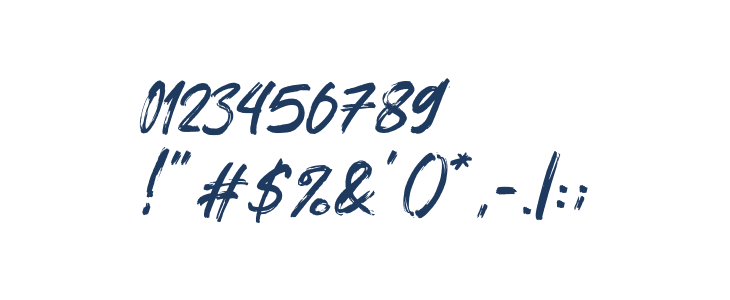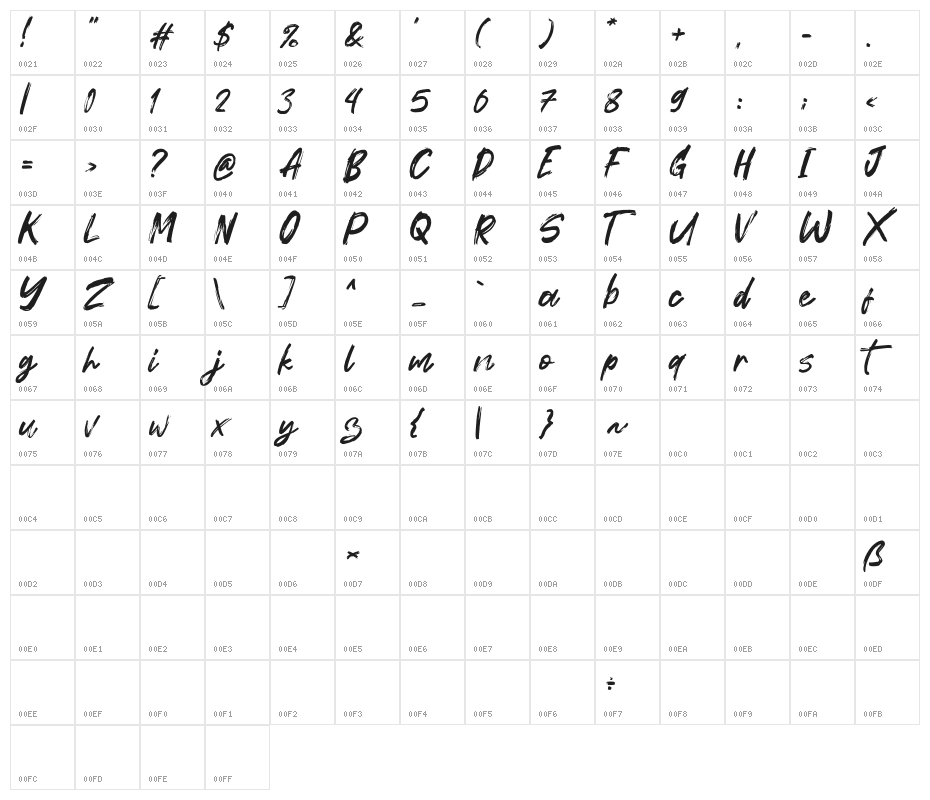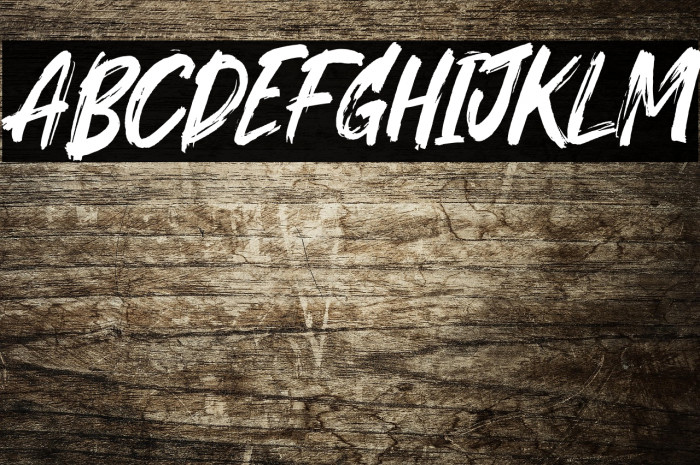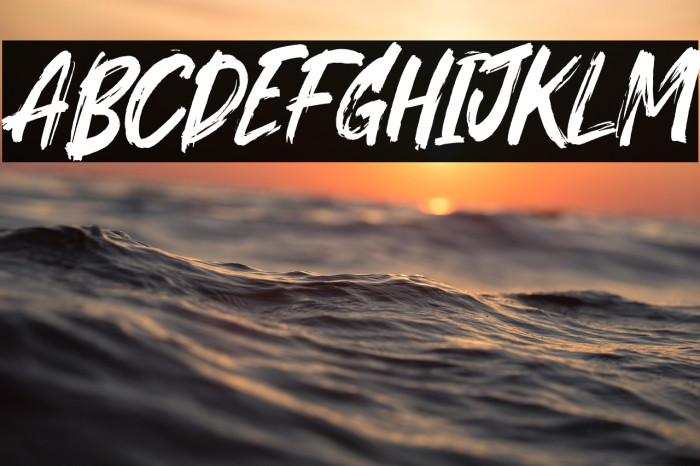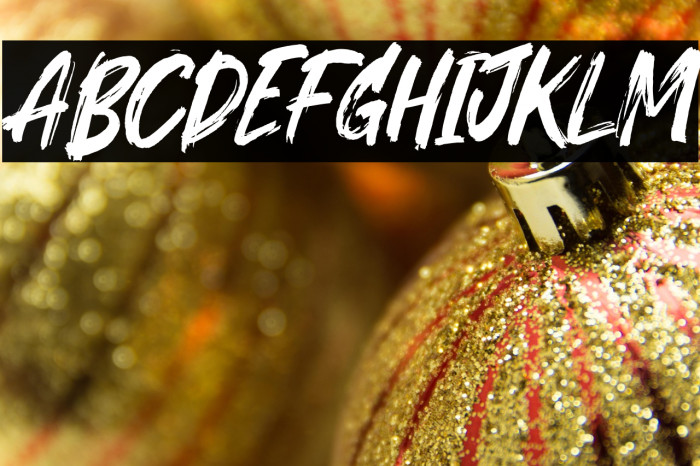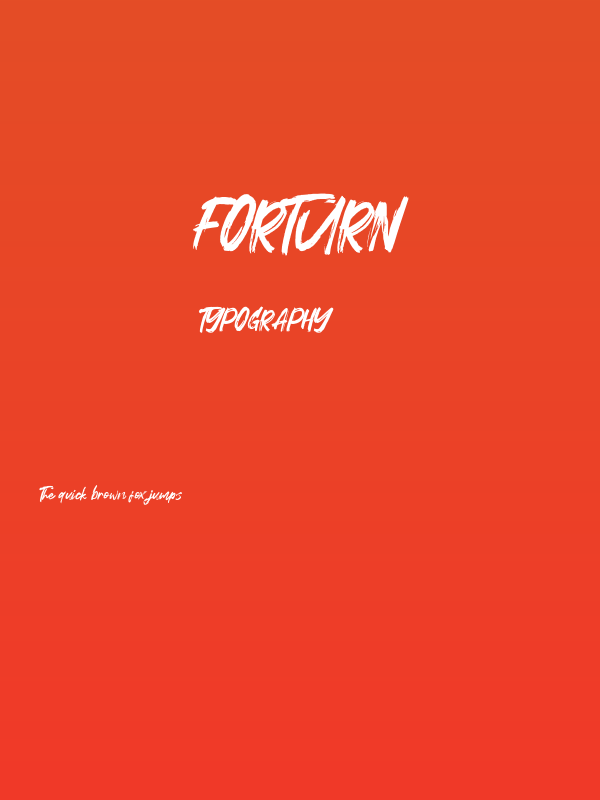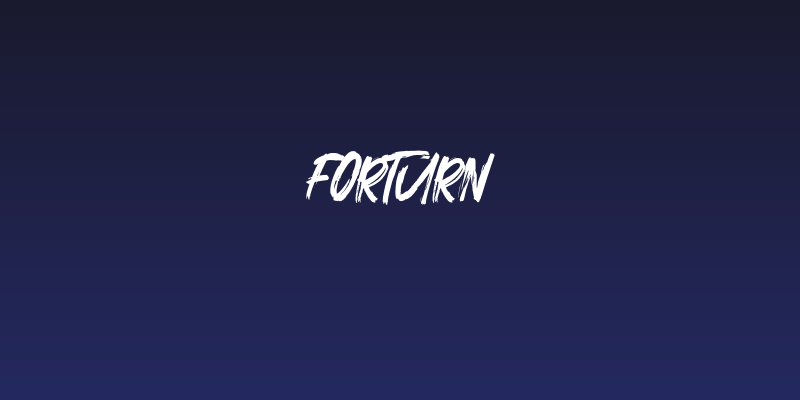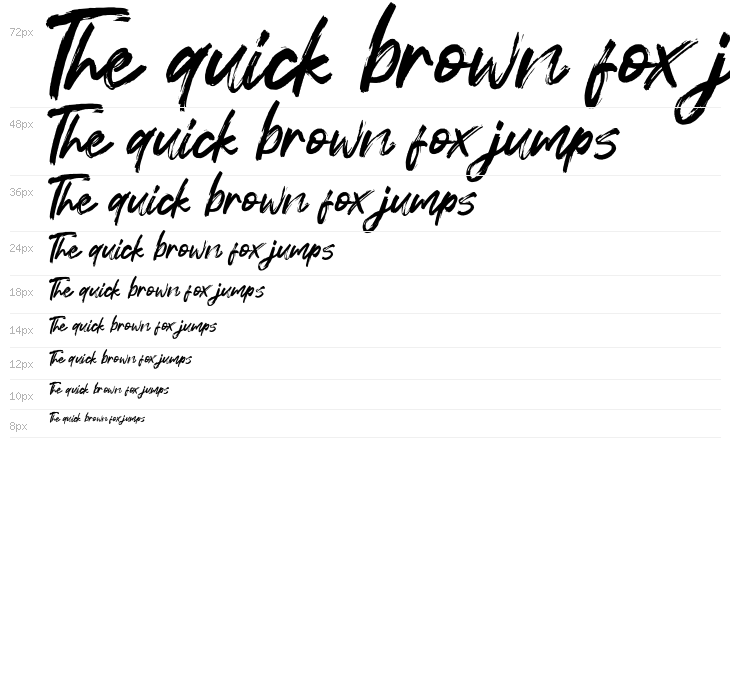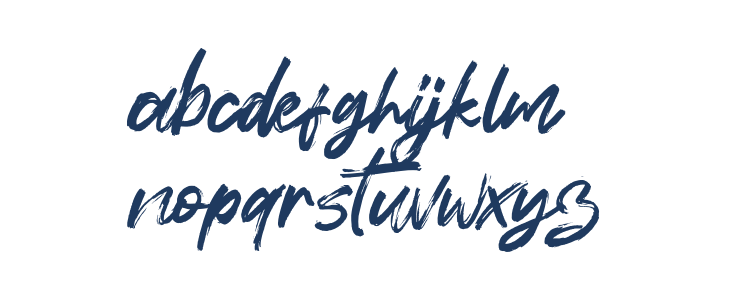
Forturn Font
Forturn Description
This font exhibits a bold, expressive style with a hand-drawn appearance. The strokes are thick and dynamic, giving each character a sense of movement and energy. The uppercase letters are particularly striking, with a slightly irregular form that adds to the font's artistic flair. Lowercase letters maintain this energetic style, with some characters featuring unique flourishes. The numbers and special characters are consistent with the overall design, ensuring a cohesive look. This font's brush-like texture and bold presence make it ideal for creative and impactful designs.
| Overall Style | Modern, Artistic |
| Proposed Projects | Ideal for posters, branding, album covers, and any project needing a dynamic, artistic touch. |